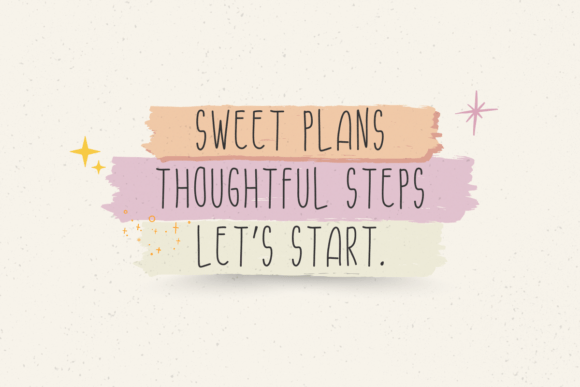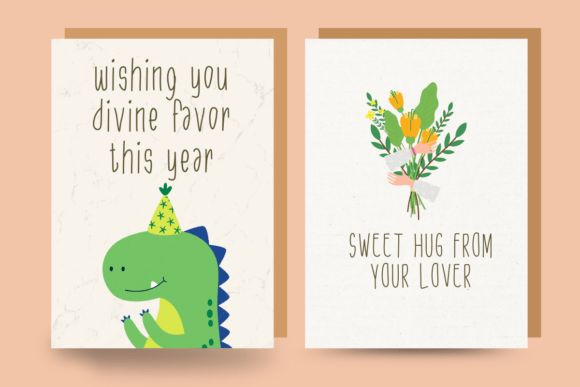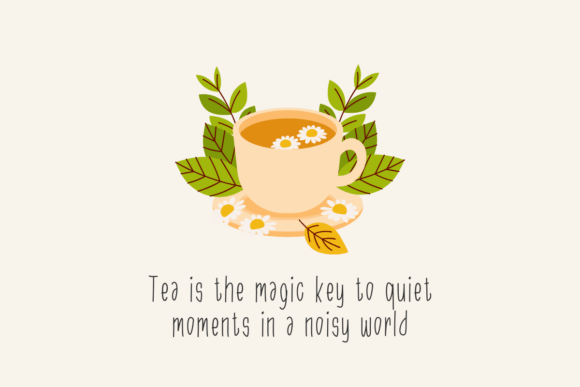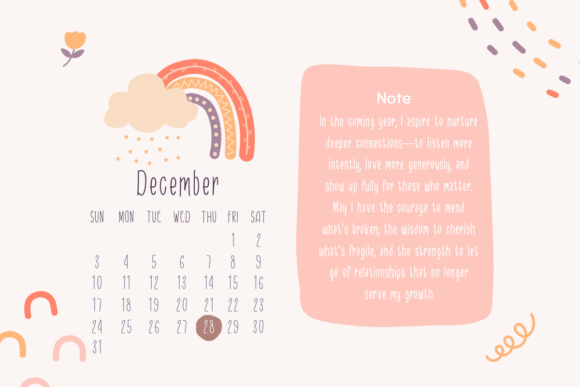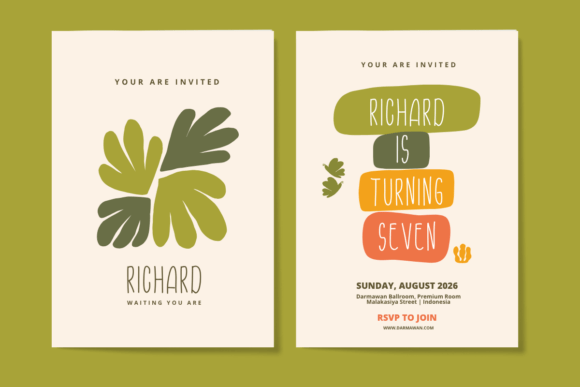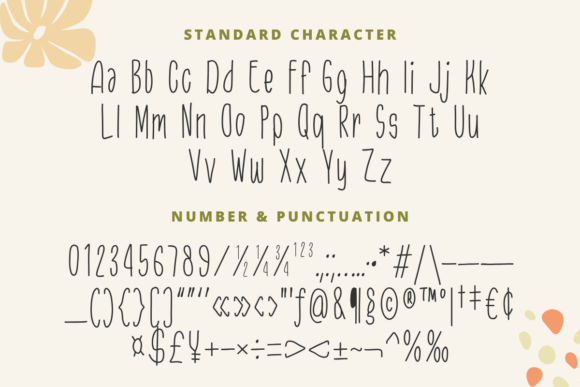
Introducing Coastmilk Font: Elevate Your Designs with Elegance and Simplicity
In the world of typography, the right font can make all the difference in transforming your creative project from ordinary to extraordinary. If you’re on the hunt for a typeface that exudes modern elegance, softness, and clarity, look no further than Coastmilk Font. This stunning handwritten font is meticulously crafted to bring a touch of sophistication and calmness to your designs, making it an ideal choice for a wide array of creative endeavors.
The Essence of Coastmilk Font
Coastmilk Font is a modern, elegant handwritten typeface that strikes the perfect balance between casual and refined. Its clean, minimalist design features smooth curves, a natural rhythm, and thin strokes that beautifully mimic the simplicity of handwritten notes. This font is not just a collection of letters; it’s a tool that can elevate your design, making it feel approachable, fresh, and sophisticated without overwhelming the senses.
One of the standout qualities of Coastmilk Font is its versatility. Whether you’re working on logos, quotes, branding materials, product packaging, web headers, or social media content, this font adapts seamlessly to any design need. Its light and airy letterforms ensure that your text communicates with ease and elegance, making it perfect for designers and crafters who aim to create a lasting impression.
What You Get with Coastmilk Font
Coastmilk Font comes with an extensive range of characters, including:
- Full uppercase and lowercase letters
- Numbers
- Punctuation
- Multilingual support
This comprehensive set ensures that you have everything you need to craft stylish compositions with ease, without having to worry about limitations in expressing your creative vision.
The applications of Coastmilk Font are endless. Here are a few ideas to get you started:
- Logos and Branding: Create a memorable logo that stands out with its elegant and modern appeal.
- Quotes and Posters: Add a touch of sophistication to your inspirational quotes and posters.
- Product Packaging: Elevate your product packaging with a font that communicates luxury and simplicity.
- Web Headers and Social Media Content: Make your digital content shine with a font that is both fresh and refined.
Why Choose Coastmilk Font?
In a sea of fonts, Coastmilk stands out for its unique blend of elegance, modernity, and simplicity. Here are a few reasons why it should be your go-to font:
- Unique Aesthetic: Offers a fresh perspective with its smooth curves and thin strokes.
- High Versatility: Suitable for a wide range of projects, from digital to print.
- Easy to Read: Ensures your message is communicated clearly and effectively.
- Multilingual Support: Helps you reach a global audience.
Coastmilk Font is more than just a typeface; it’s a design companion that can help you achieve that perfect blend of elegance and simplicity in your projects. With its modern appeal, versatility, and comprehensive character set, it’s an excellent addition to any designer’s toolkit. Whether you’re a professional designer or a crafting enthusiast, Coastmilk Font invites you to explore new dimensions of creativity and make your mark with style and sophistication.